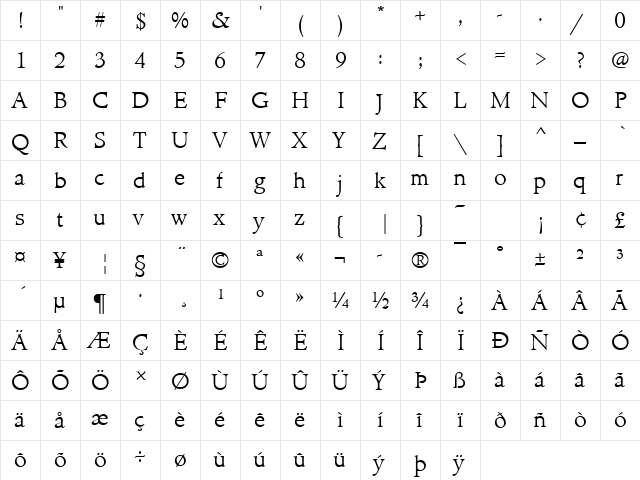
MinisterTLig Regular
Design Context for MinisterTLig Typeface
MinisterTLig is a composed and adaptable typeface that performs quietly and consistently across a wide range of design contexts.